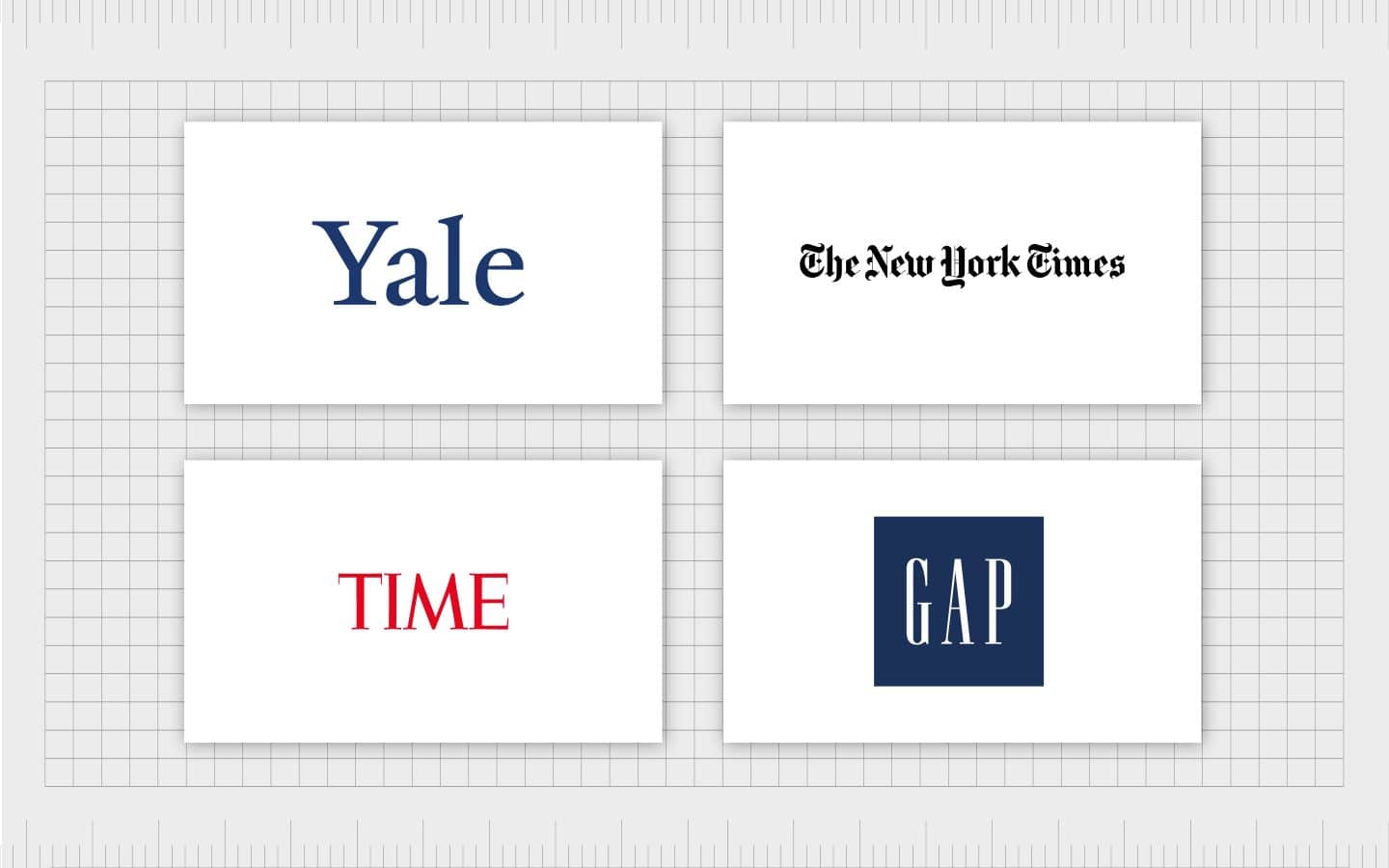
Capitalize Fonts Psychology in Your Designing
Many times, readers leave their comments and feedback on different articles because of some irregular, inconsistent, and bogus font utilization in the content. Readers are totally interrupted, and they move on to other sites.
Fonts have their own power, and emotions like Comic Sans are unbearable for the designer while it is mostly used in a funny and playful context. It’s better to know about font psychology before choosing any. It is important to give emotional and impressive attraction, which helps to increase your audience.
Fonts Highlight Your Business Theme and Design
Every brand has its own identity. So, the business theme and design must be related, and it should represent your brand identity. All related things like name, slogan, color, logo, and fonts highlight your business theme and design. It must be well defined and decided which fonts are the best suited for your targeted audience.
As Peter Shams – Graphic Designing Head at FreeEssayWriters stated,
“Fonts are the silent ambassador of your design; they not only promote your design, but are also a source of rightful branding.”
How the Readers Perceive Fonts
Look at the renowned logo of Walt Disney. Everyone can tell its belonging and business details. Even a child can give you a better picture easily without much thinking about it.
Individual letter or text doesn’t give impressive meaning as the complete words have. This font is not much readable but has more impact than other readable fonts. The logo and content have emotional effects, values, and also have subconscious messages as well, which is directly related to the brand’s identity.
Fonts Can Affect Other Senses
You may not imagine that fonts are not affected only on the reader’s view and focus, but are associated with other senses like smell and taste as well. It is important to know about your audience’s sense and choice to make a better design full of a strong message.
If you do so, your design will meet your business marketing strategies.
As for the audience’s sense of sound, classical music-related content is used in a script font. So, it is necessary to keep the reader’s sense, age, and gender factor while choosing any font.
Different Fonts Psychology
Every people have different favorite colors, likes, and dislike. Any content or text is not just written; the reader reads it and understands what you want to deliver without any difficulties and hurdles. It’s not just what you say, but how you say it. So, think about fonts psychology in any design to match your ideas, creativity and targeted audience with your products and brand identity.
a. Serif Font Psychology
This is the most traditional and widely used font that has been associated with feelings and heritage. It is an ideal design that feels “established”. As it is associated with heritage, so it persists feelings of trust and respectability. Use this font for formal situations.
It is idealistic for financial, editorial, academics, and broadsheets companies to create their brand identity. Times New Roman, Georgia, and Garamond are basic options.
b. Slab Serif Psychology
It is a subset of serif family with specifically slab sections. It is associated with confidence, boldness, and solidity. It is best for both intuitive and non-intuitive products.
It is mostly used in the automobile industry-related company, which tends to show modern and creative elements in their identity. Courier, Rockwell, and Museo are basic options.
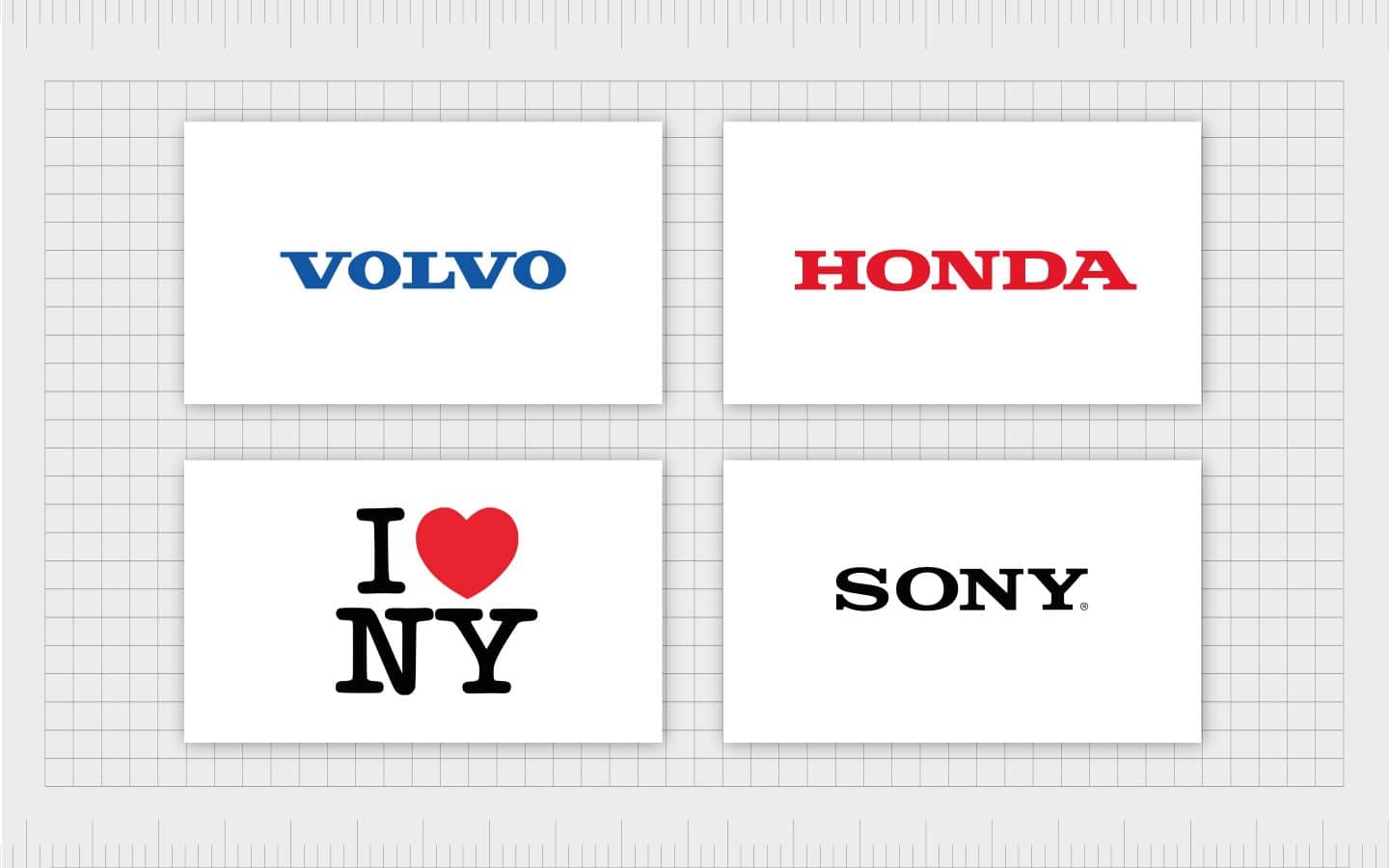
c. Sans Serif Font Psychology
It is a clean and modern font. It is widely used in a no-nonsense and simple format. It enhances the usage of typography in designing to promote sensibility and honesty. It will not destruct the reader’s view. It is best for a simple design.
These are mostly used in clothing, fintech, tech-related idealistic, and future branding. Arial, Century Gothic, and Helvetica are the basic options.
d. Script Font Psychology
It is full of fancy styles. It shows femininity, elegance, artistic, and natural writing structure. Keep in mind to use legible only before choosing fonts. It enhances the usage of typography in designing to promote inspirational emotions and creativity. It is best to convey your feelings, experiences, history in a beautiful way.
Generally, this font must use with caution to increase its fancy style. Lucida Script, Lobster, and Zapfino are the basic options.
e. Modern Font Psychology
It is a thin and thick transition in the strokes between letters. It enhances the usage of typography in designing to promote exclusiveness, intelligence, and styling.
t tends to do branding with a modern touch. It is associated with Facebook. Matchbook, Politica, and Klavika are the basic options.
How to Identify Best One Related to Your Design
Branding and designing are totally depending upon visuals effects.
As Mark William – Logo Designer at Australian Master mentioned in a seminar,